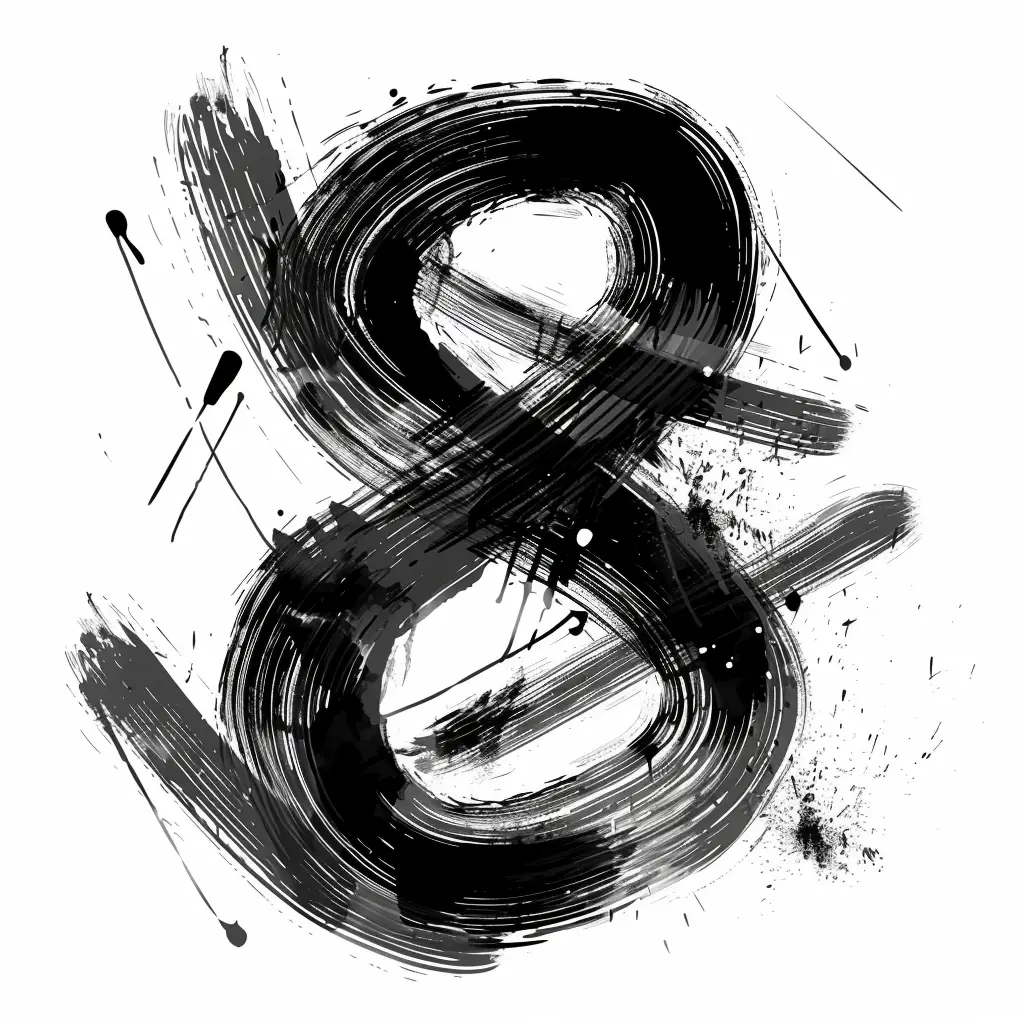
This image features a stylized ampersand ("&") rendered in a bold, expressive brushstroke style. The design uses stark black and white, with thick, textured strokes, splatters, and drips creating a dynamic, artistic effect. The composition emphasizes movement and texture, giving the symbol a hand-painted, abstract appearance.